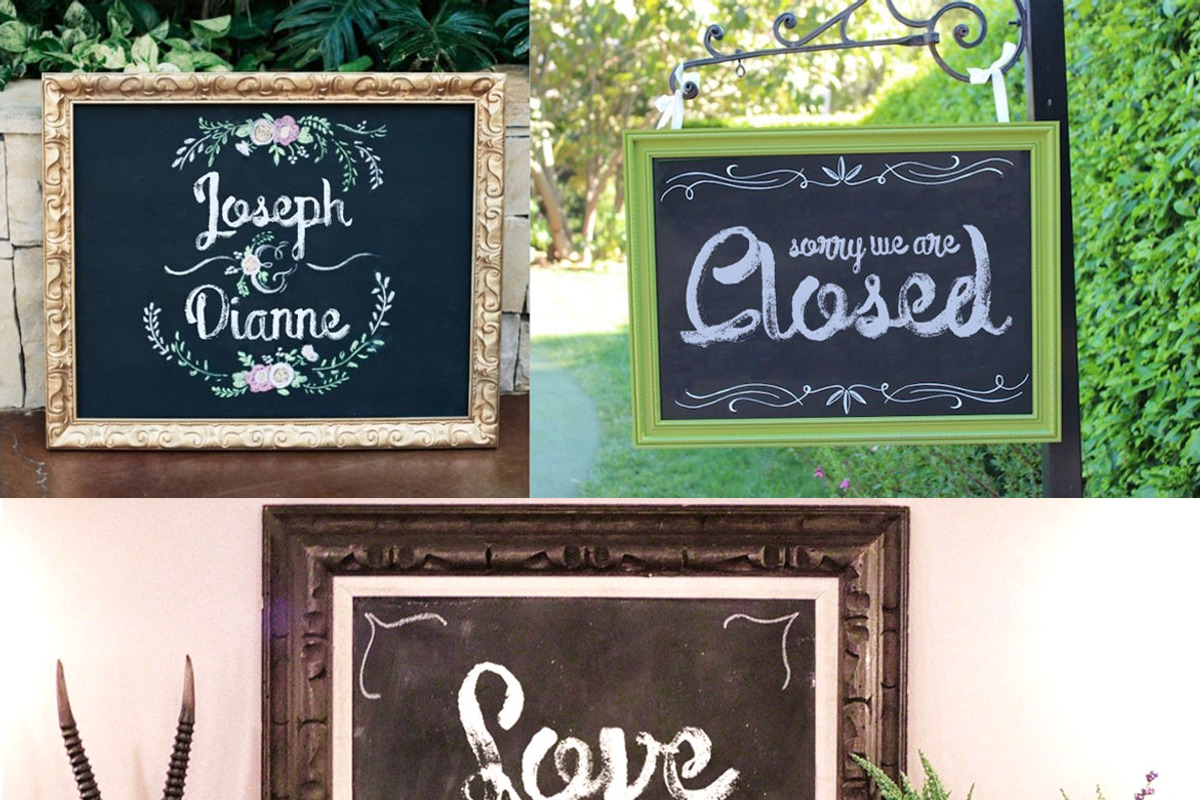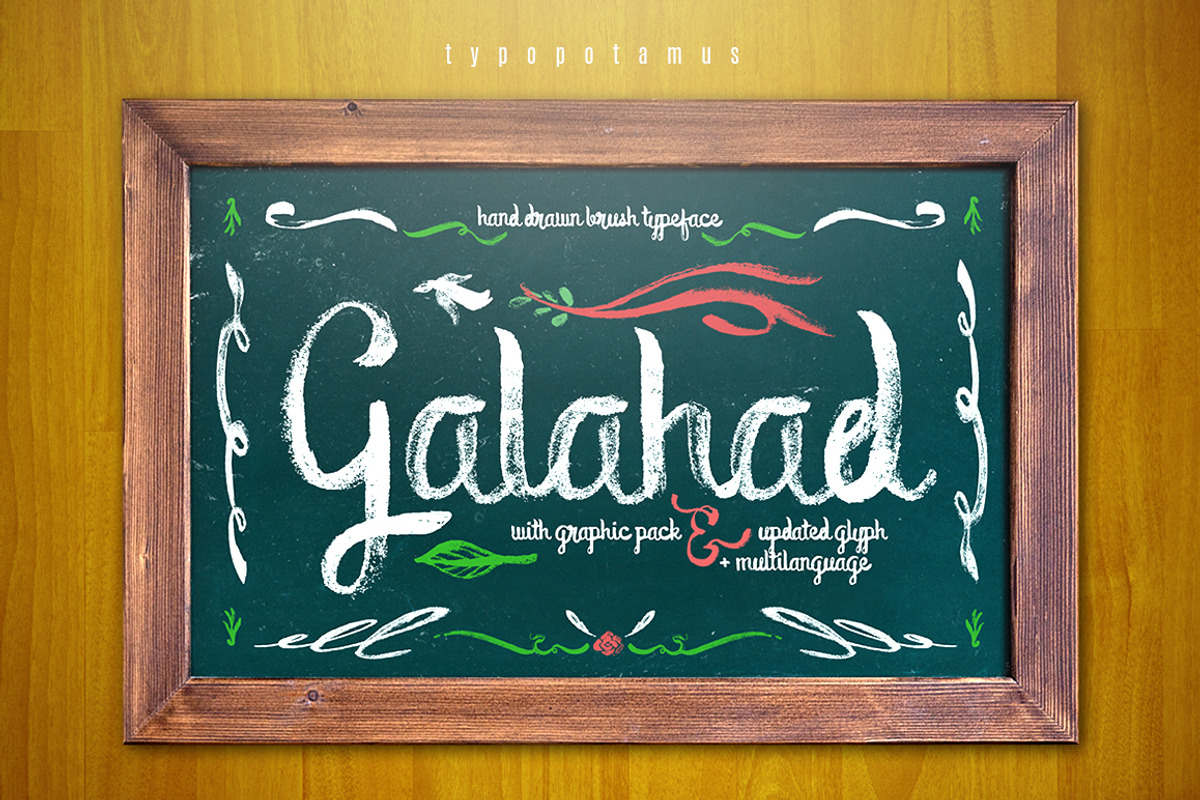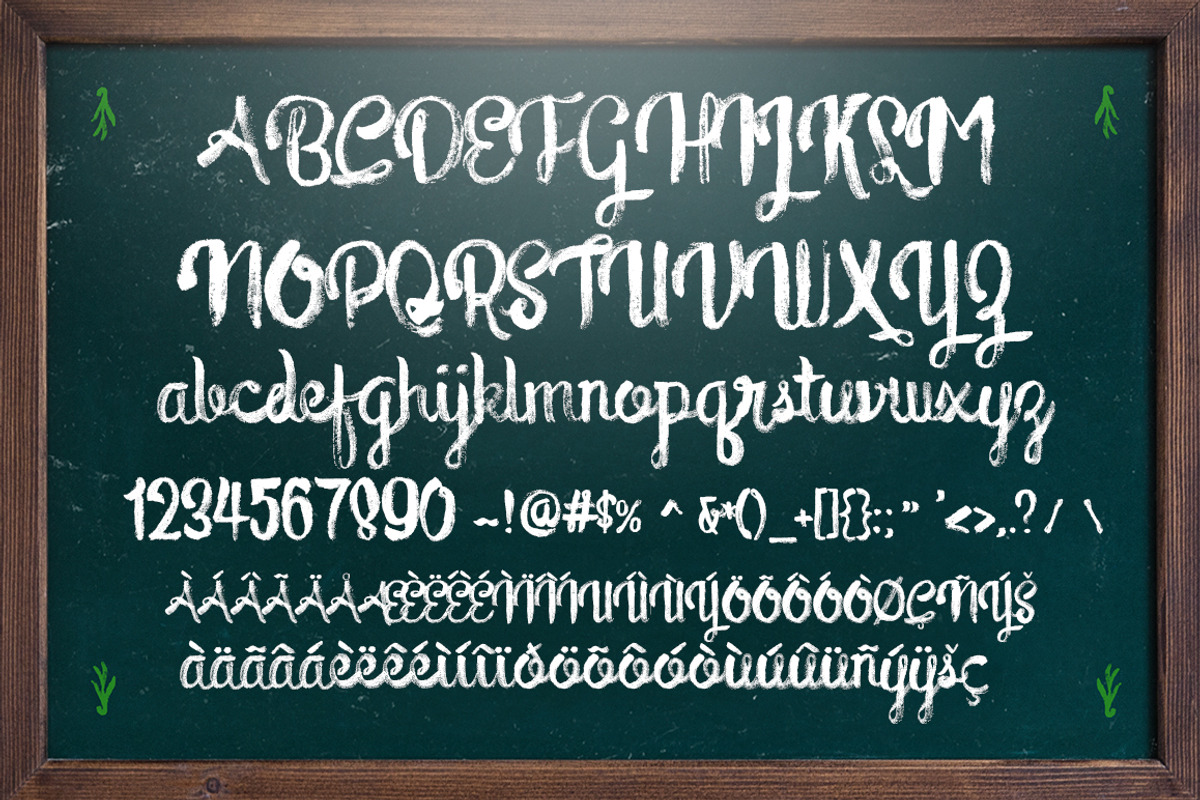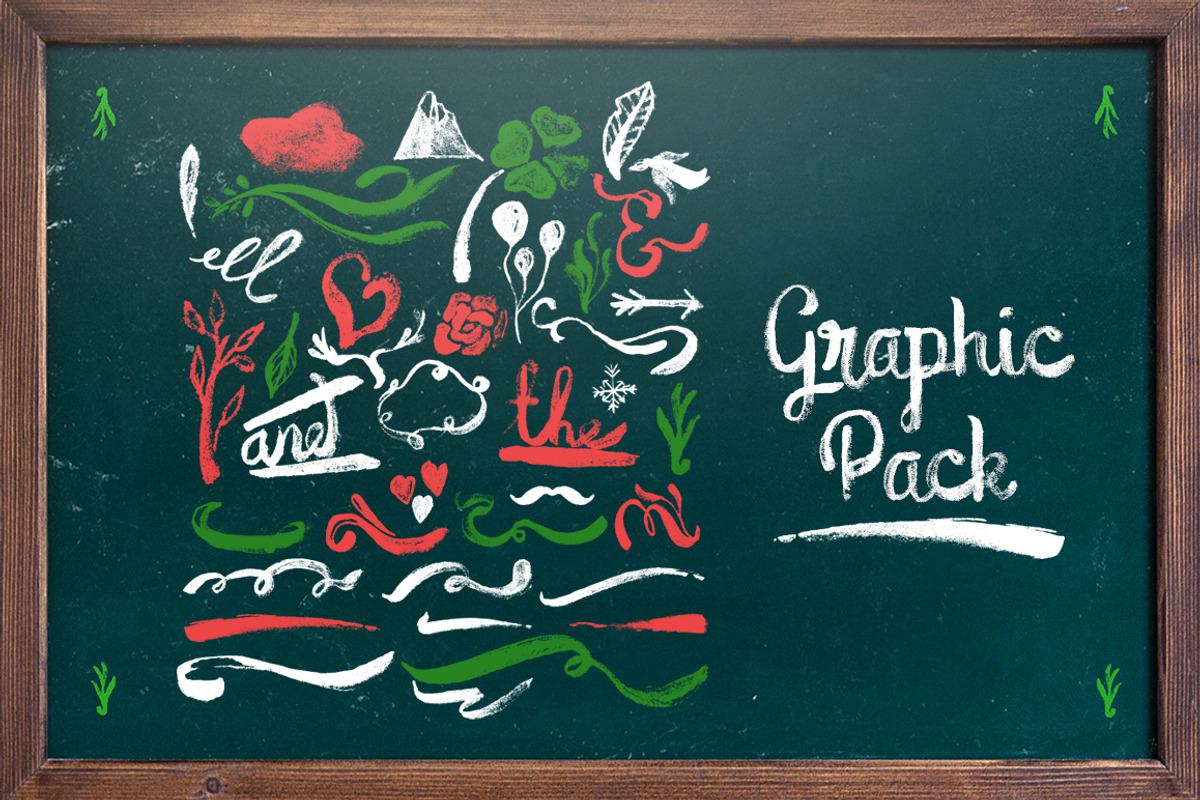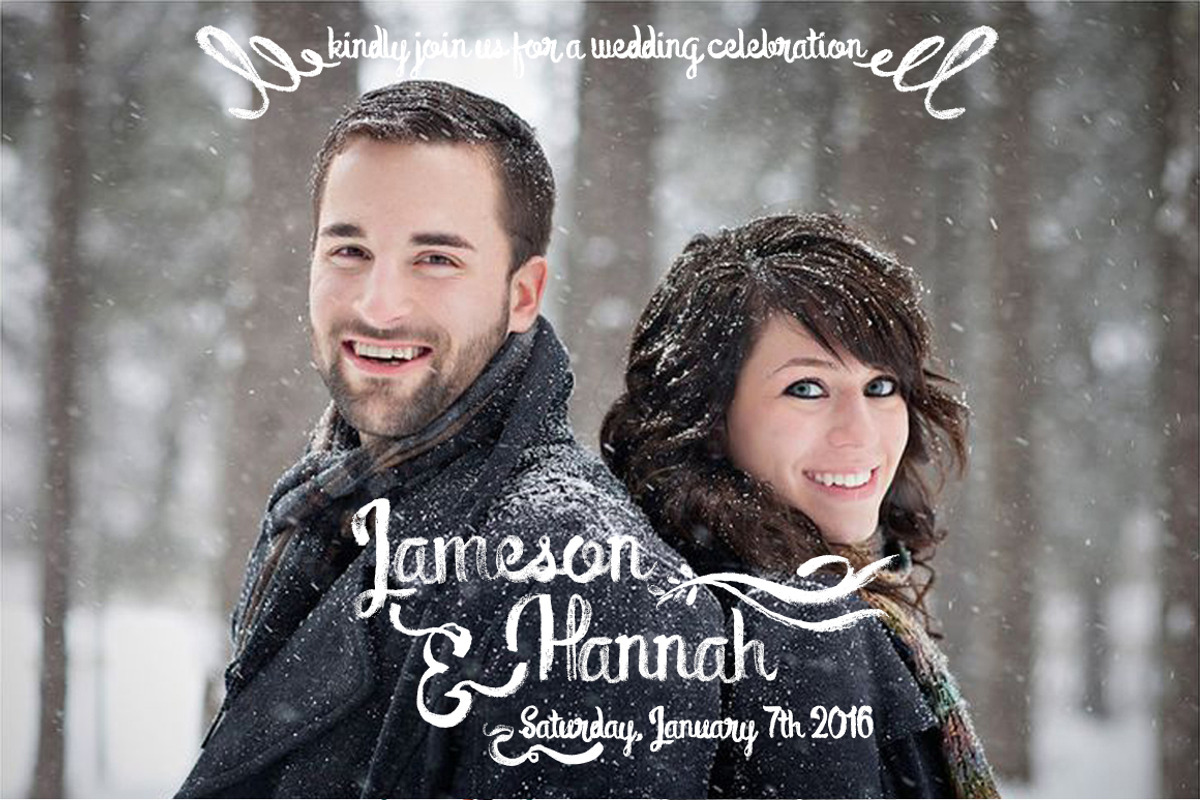
Galahad Typeface
Galahad Typeface by ghilkydraws is a font selected for branding, posters, packaging, typography.
- The typeface is great for : invitations logos quotes headings t-shirt letterhead signage labels news posters chalkboard style restaurant men
Galahad Typeface by ghilkydraws fits naturally into Branding, posters, packaging, typography.